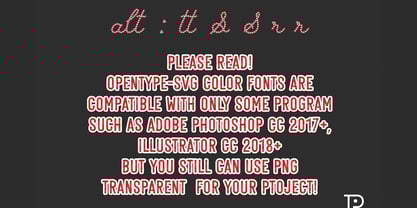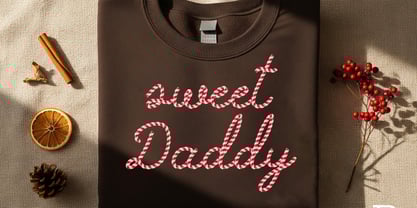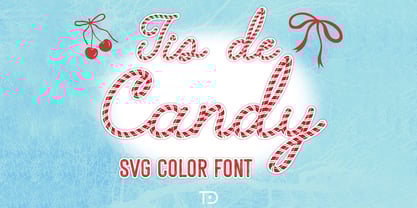
Tis De Candy SVG
by Tanon Design
The Tis De Candy SVG Font Family was designed by Tanonnat Kaeoket and published by Tanon Design. Tis De Candy SVG contains 1 styles.
Tis de Candy Color font is a fun and festive display font. It will look fantastic on all your Christmas-themed designs including t-shirt designs, mug designs, digital designs, crafts, cards, and any projects! Note! This product is a color font and is compatible with PhotoShop, Illustrator, etc. Please check before buying. This product are not compatible with Cricut.